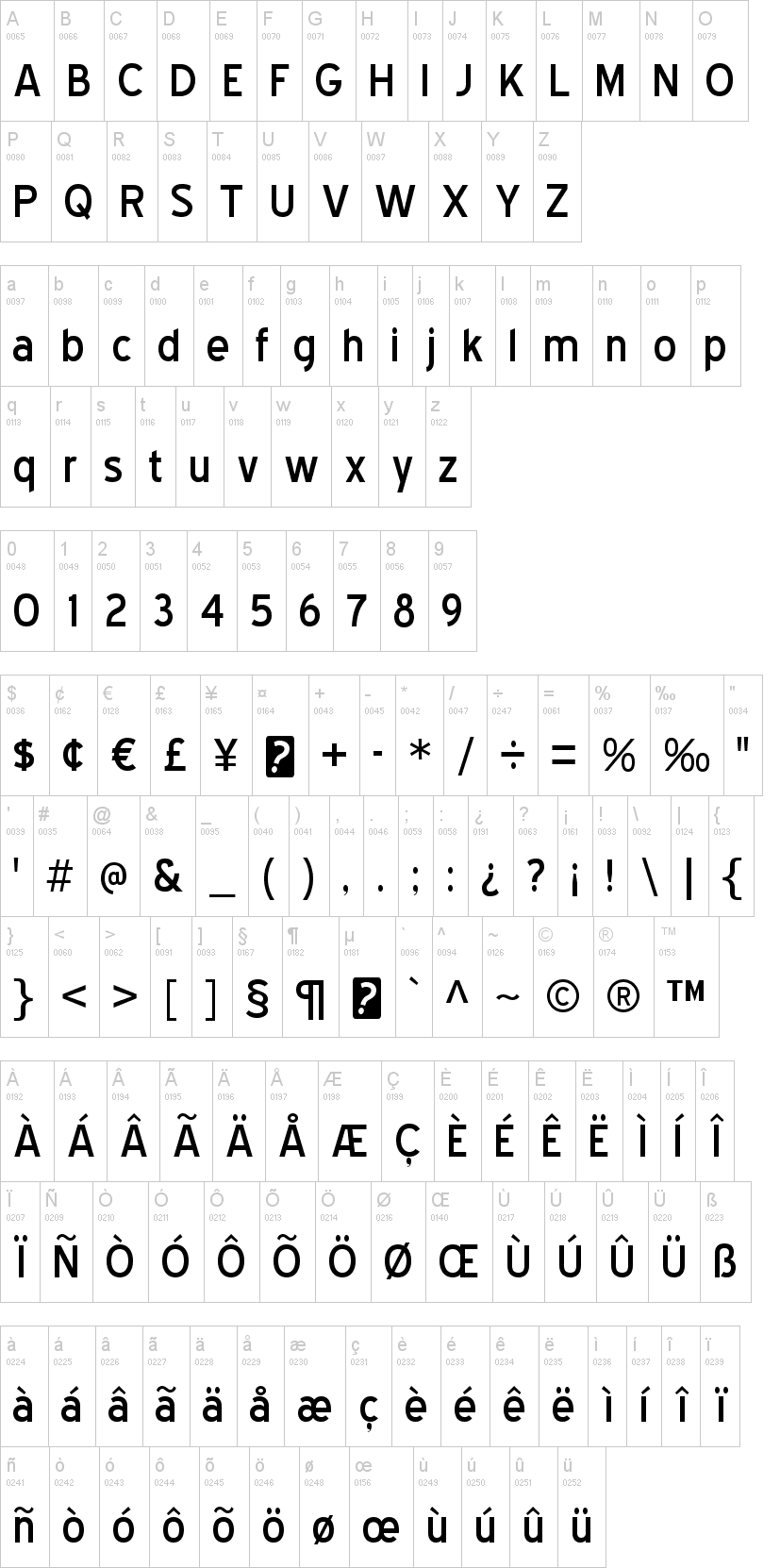
Шрифт Blue Highway
Blue Highway was inspired by 20th Century North American road signs. Don't forget to read the instructions inside the zip file. Updated in 2012.